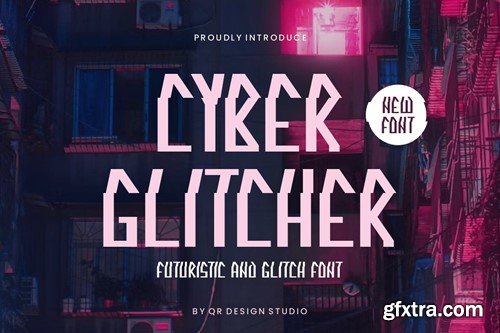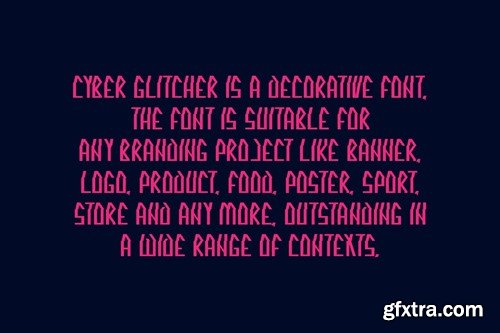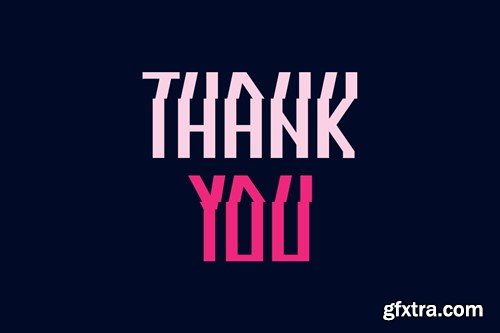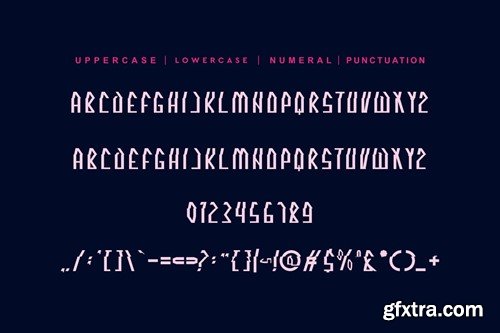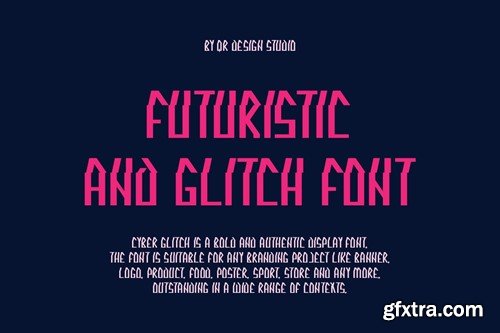
Cyber Glitcher Font
Cyber Glitcher Font is a decorative and authentic display font. The font is suitable for any branding project like poster, logo, sport, and many more. Outstanding in a wide range of contexts. Included